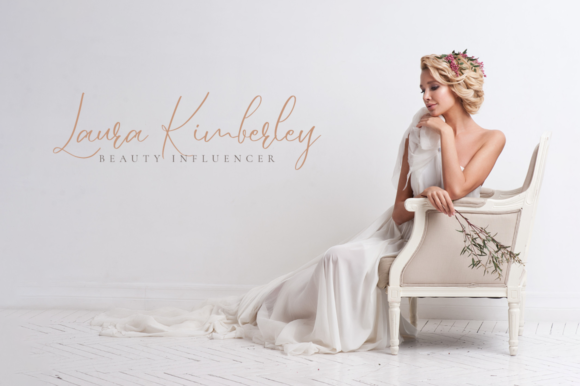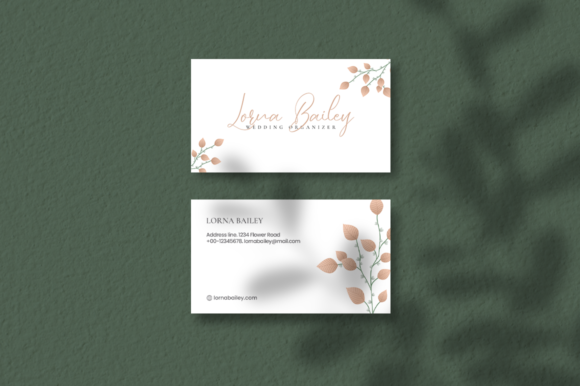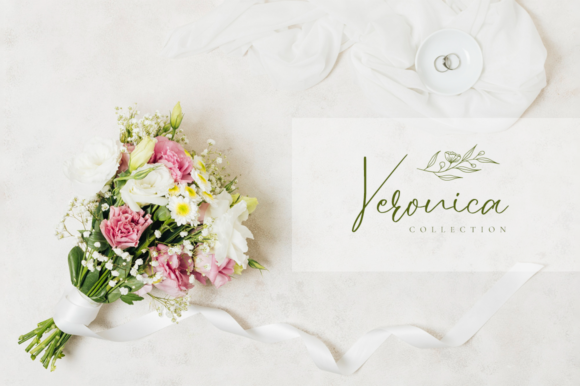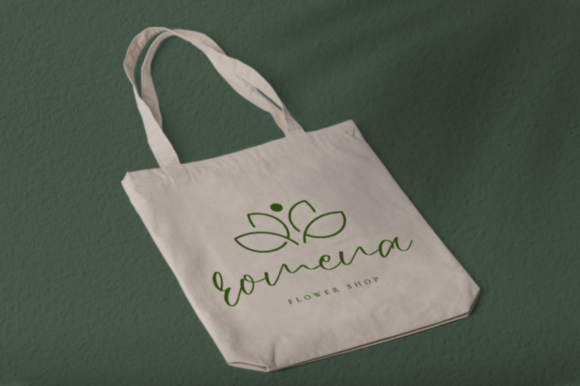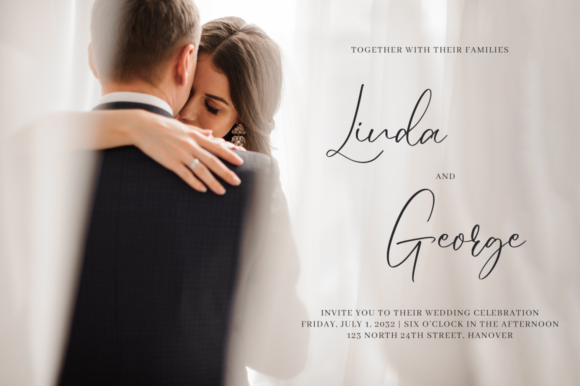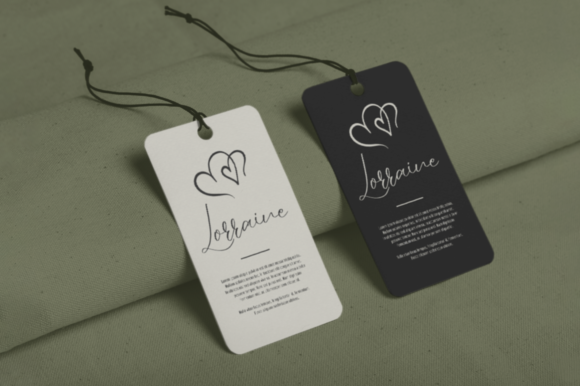
Introduction to Laurentine Font
Laurentine is an incredibly distinct, delicate and timeless handwritten font.
Key Features of Laurentine Font
Why Choose Laurentine Font?
Laurentine Font offers exceptional quality and versatility, making it a valuable addition to your design toolkit. Whether you’re creating for personal projects or commercial use, Laurentine Font delivers professional results.